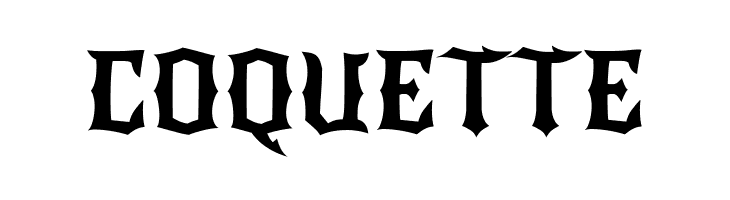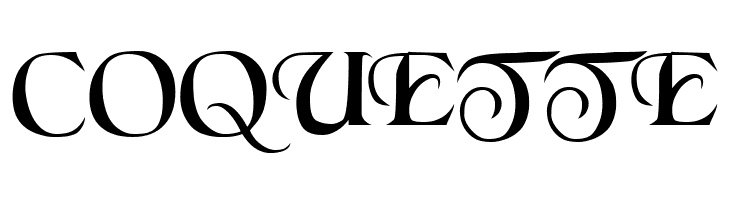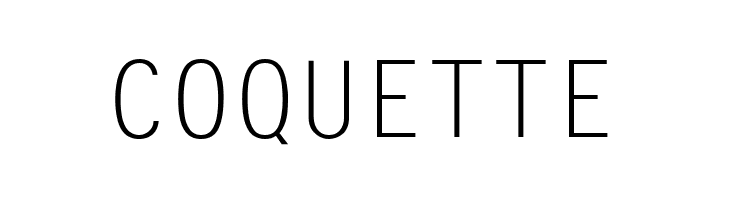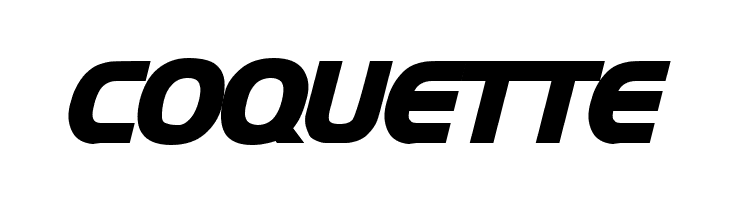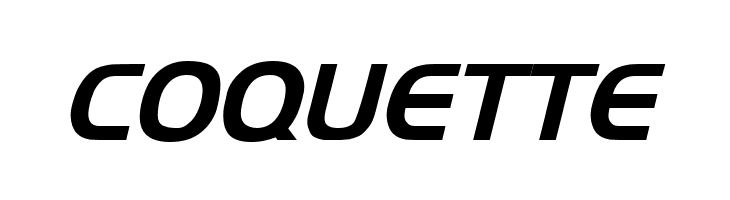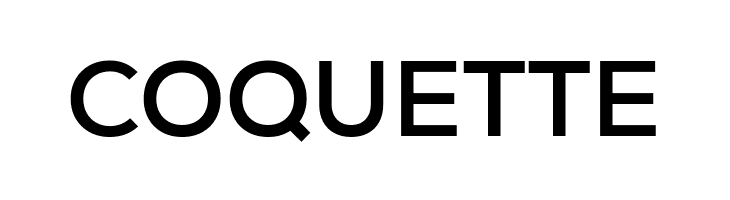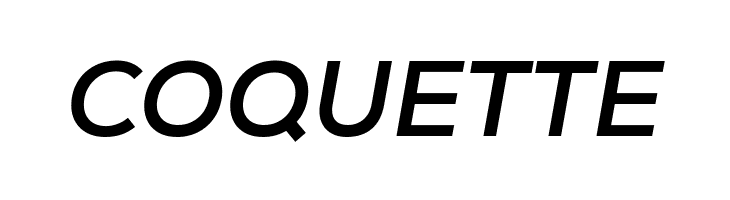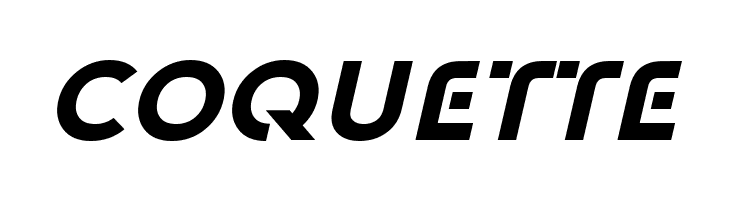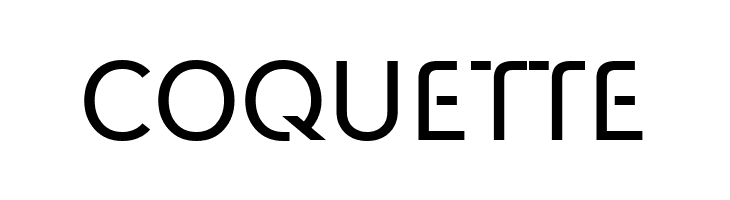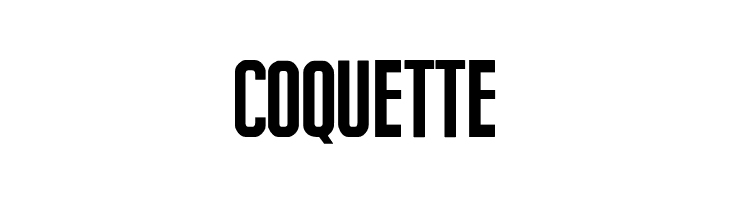
A bold, modern font with tall, narrow characters and consistent stroke width.
A bold, gothic-inspired font with sharp, angular lines and dramatic flair.
A classic, calligraphic serif font with decorative flourishes.
A modern, geometric sans-serif font with uniform character width and clean lines.
A sleek, modern italic font with consistent stroke width and elegant slant.
A bold, gothic-inspired font with sharp, angular lines and dramatic serifs.
A bold, gothic-inspired font with sharp, angular lines and a rebellious style.
A pixelated, retro-style font with a digital display aesthetic.
A modern, geometric sans-serif font with bold, slightly condensed characters.
A bold, modern font with thick, uniform strokes and geometric shapes.
A modern, italicized font with a sleek and dynamic style.
A bold, modern sans-serif font with high contrast and clean lines.
A modern, geometric sans-serif font with a clean and sleek design.
A bold, modern font with clean, geometric lines and excellent readability.
A bold, italic sans-serif font with a modern and dynamic style.
A bold, modern sans-serif font with clean lines and excellent legibility.
A modern, bold, and italicized font with a sleek and dynamic design.
A modern, geometric sans-serif font with uniform strokes and a clean appearance.
A modern, italic sans-serif font with clean lines and a dynamic style.
A bold, modern sans-serif font with geometric precision and high legibility.
A modern, bold, and italic font with clean lines and smooth curves.
A clean, modern sans-serif font with a geometric and minimalist design.
A sleek, extra-light italic sans-serif font with a modern and fluid design.
A bold, modern sans-serif font with geometric structure and clean lines.
A sleek, modern, and geometric italic font with a light weight.
A modern, geometric sans-serif font with a clean and balanced design.
A modern, italic sans-serif font with clean lines and excellent legibility.